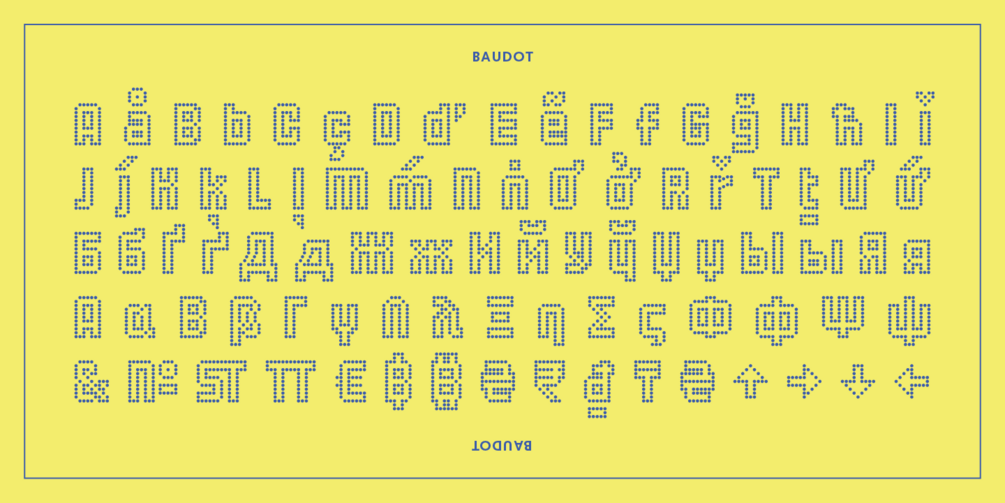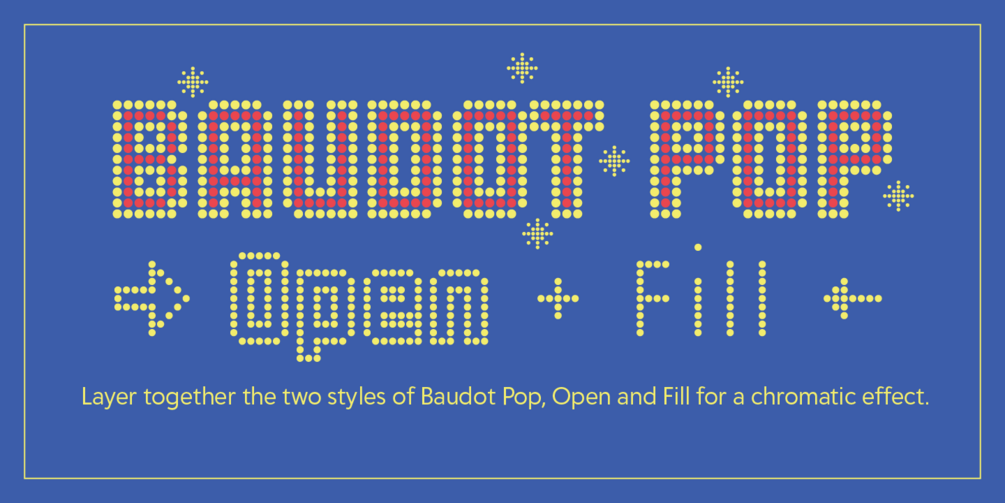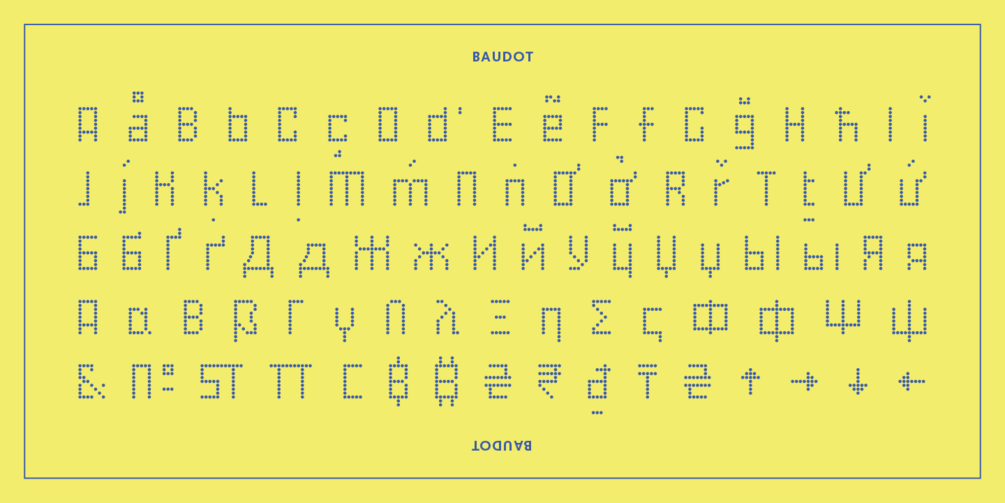
François Robert was inspired by the bright lights of Las Vegas to create a headline alphabet in 1968 that embodied the appeal of glitzy entertainment of that period. Originally released as dry transfer (rubdown type) format under the name “Chicago”, the typeface went on to grace magazine covers, posters, albums, and books throughout the 1970s and early 1980s.
In 2022, Jean-Benoît Lévy introduced François Robert to Delve Withrington, kicking off a collaboration to produce Robert’s original design again, from scratch, and re-imagined for the 21st century.
The result: “Baudot” [boˈdo] is comprised of three weights: Light, Regular, and Bold, plus two styles for color layering. As one would expect of today’s fonts, Baudot has handy OpenType features and a broad repertoire of 975 glyphs with support for 224 languages, including Vietnamese, Greek, plus Cyrillic script.
While Baudot is primarily a grid-based design, it strategically strays from that rigidity by utilizing offset positions as a second grid in some instances to reduce gaps in strokes and to achieve a more consistent representation of design intent across the typeface.
Baudot is certain to add some dazzle and delight to any headline or drop cap treatment, especially with the layering option employed for a flashy chromatic effect. •!•